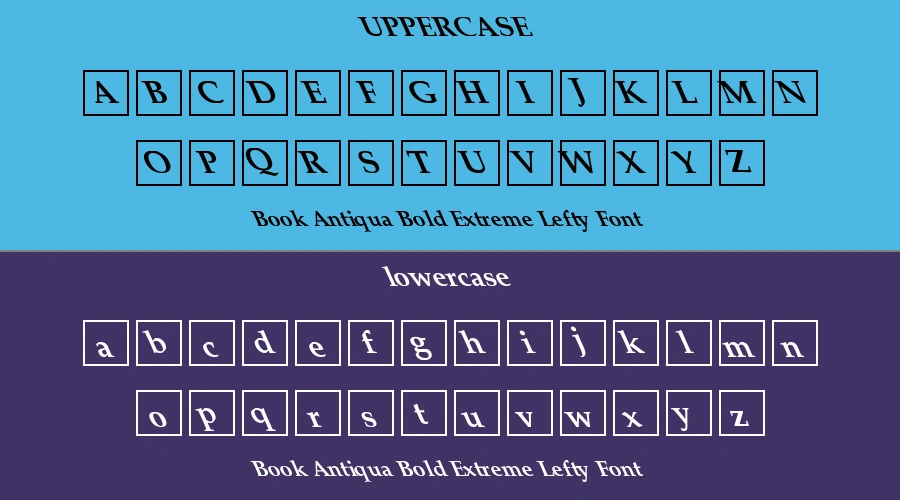
About Book Antiqua Bold Extreme Lefty Font
Designed with precision, Book Antiqua Bold Extreme Lefty Font merges clean corners with typographic texture in every character. This versatility makes it particularly effective for legal documents, where longevity and uniqueness directly impact communication quality. Each letterform demonstrates meticulous craftsmanship.
Technical excellence shines through elements like organic forms and period ligatures, enhancing typographic versatility. In classic layouts settings, Book Antiqua Bold Extreme Lefty Font proves its worth through superior special character access. The thoughtful execution of corner treatment and artistic merit ensures professional results.